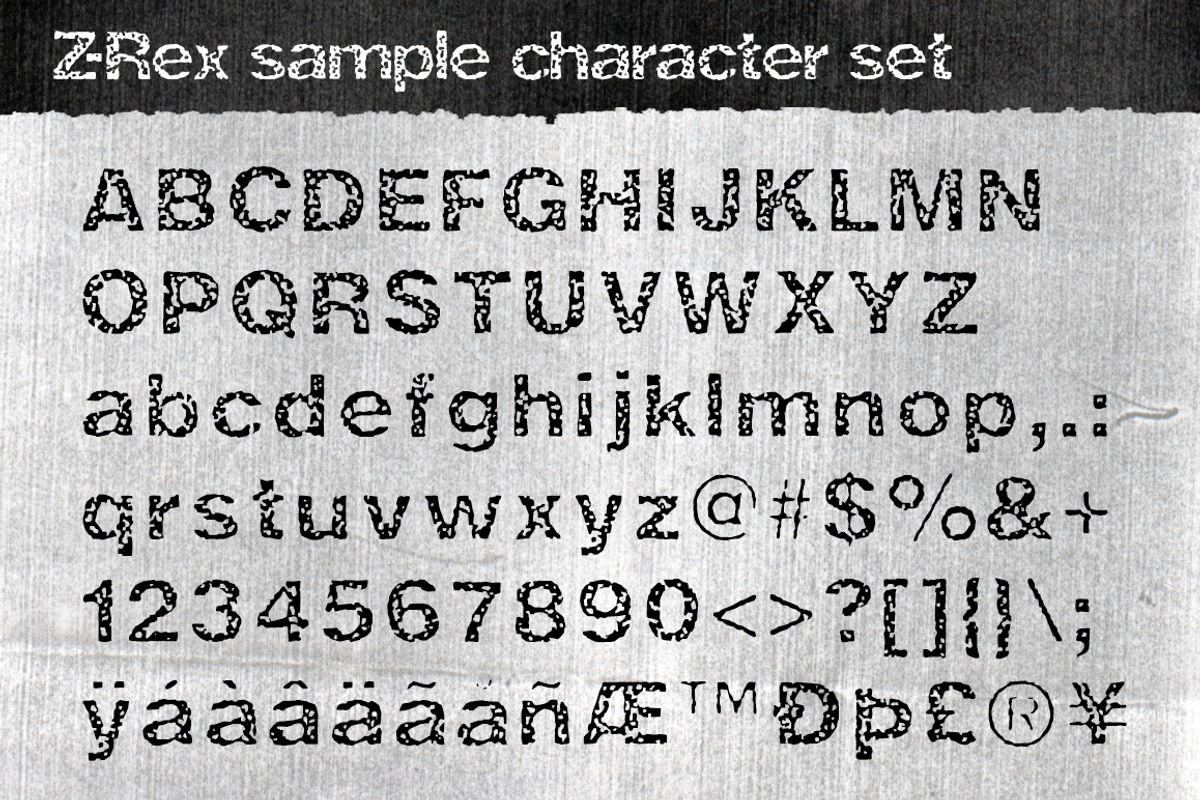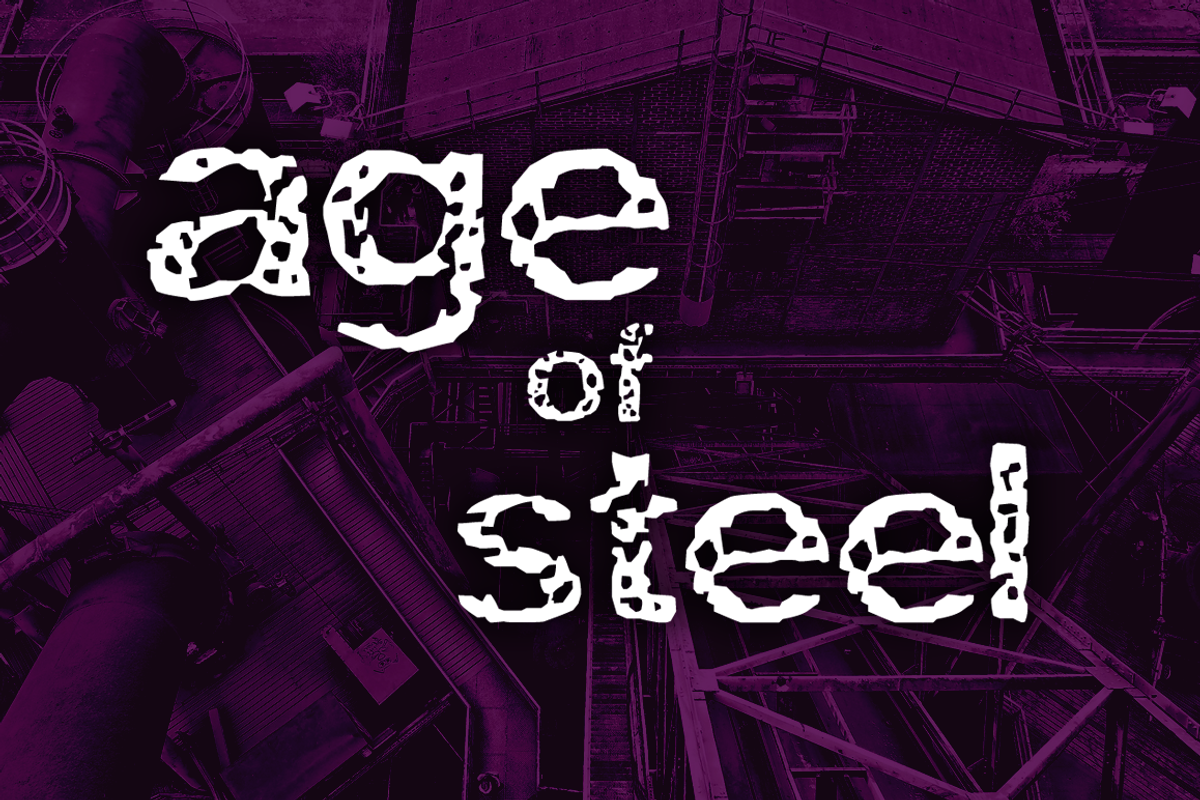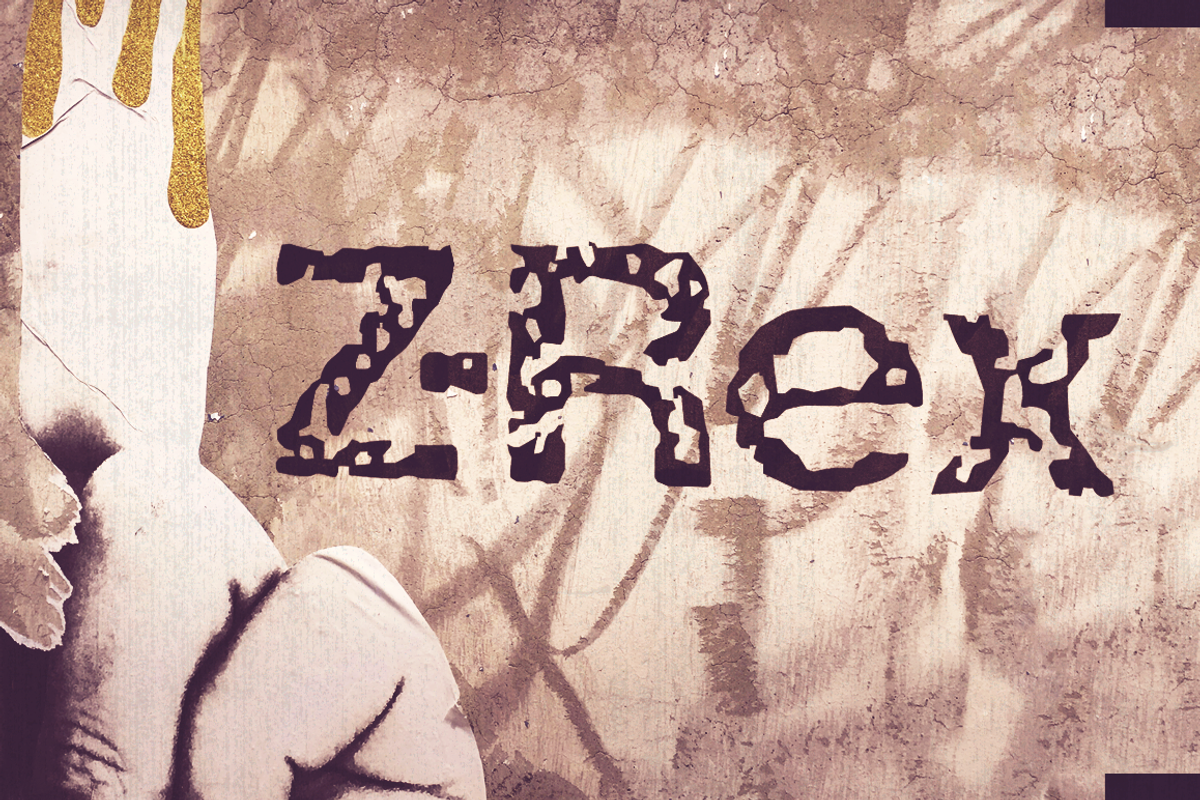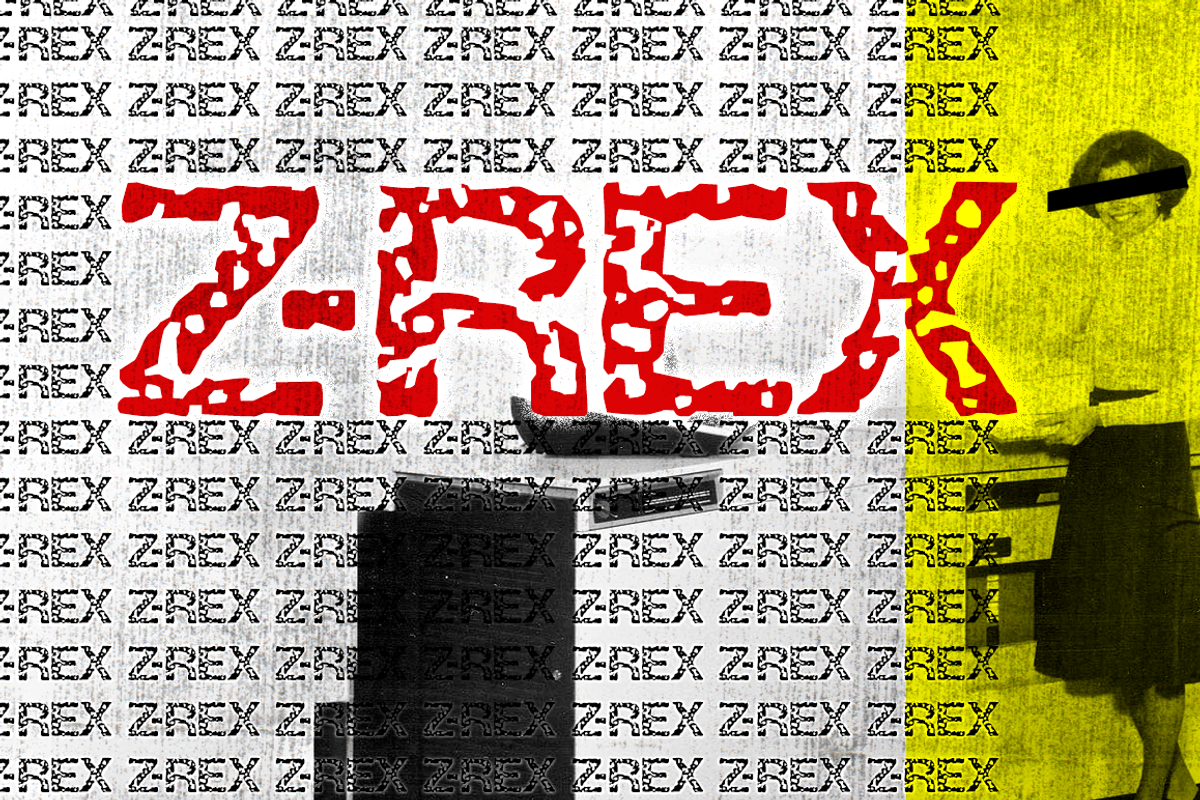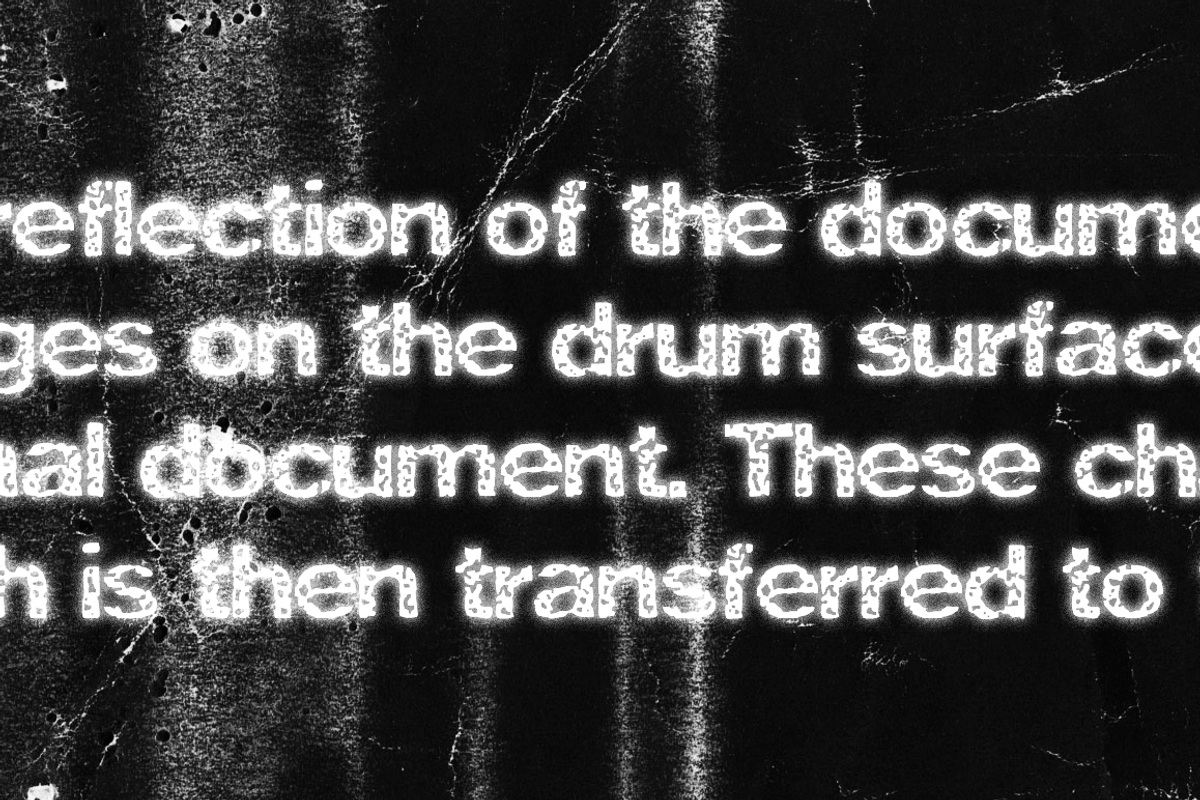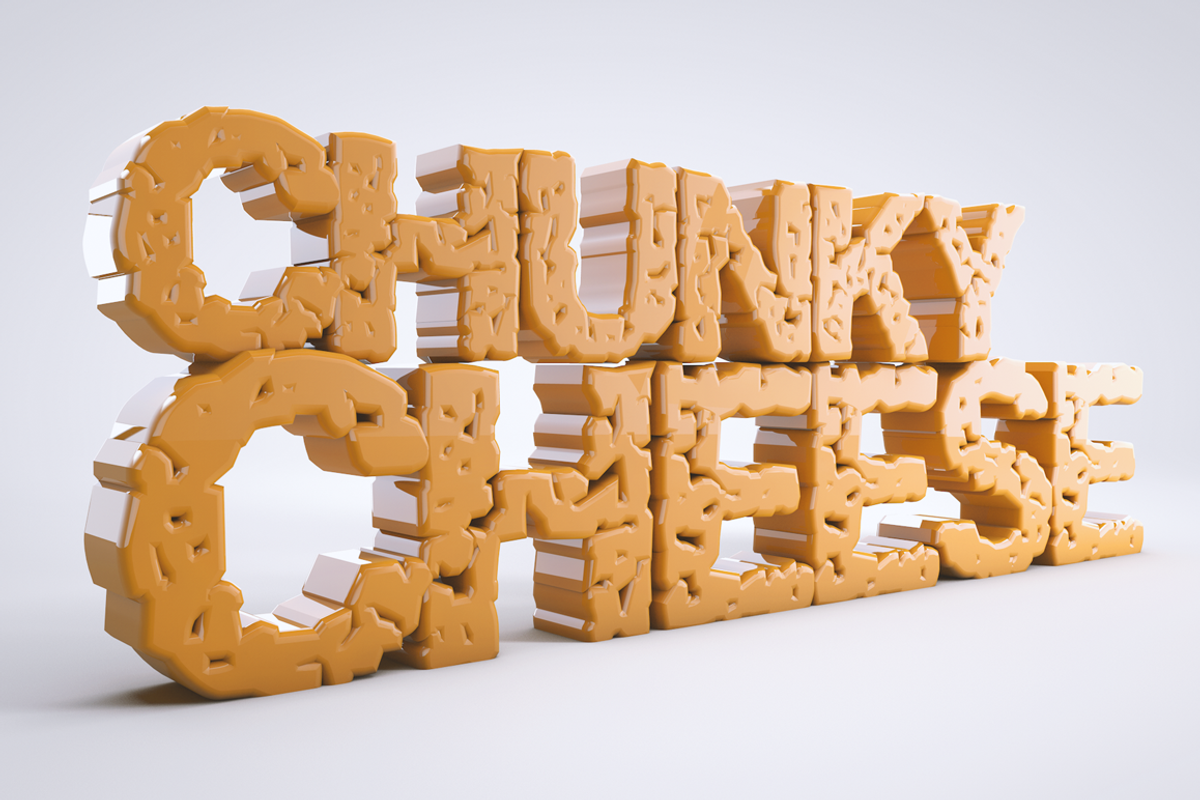
Z-Rex
Z-Rex is a bold distressed typeface that has been destroyed with an old 1980's copier. It was originally used on a punk rock poster, but works great for all kinds of things. I love using it in 3D too. Give it a try today!